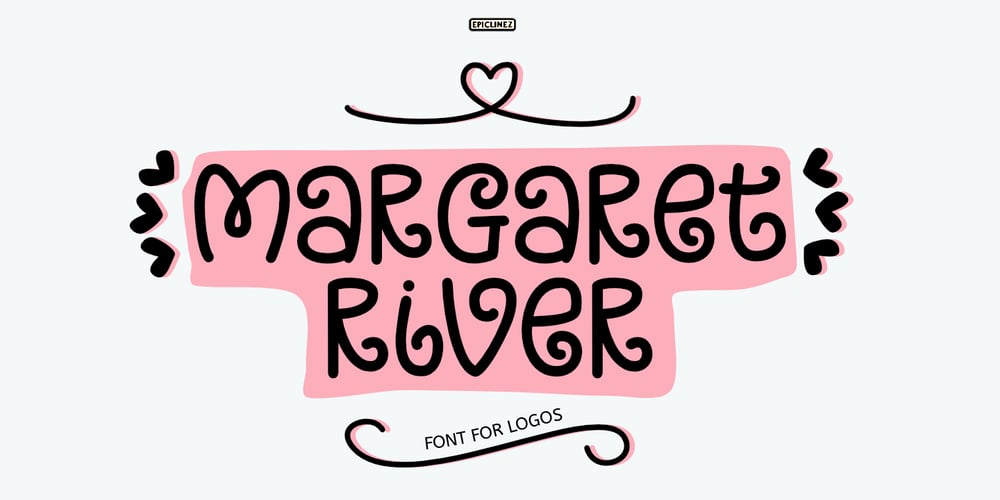
Margaret River Font Family was designed by Aldy Sidik and published by Epiclinez. Margaret River contains 1 styles and family package options. Margaret River is a cute, funny handwritten font. It is very cool for use with logos, headlines, branding, and more.